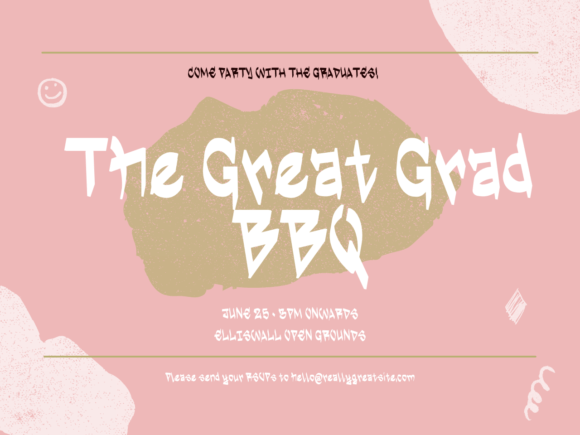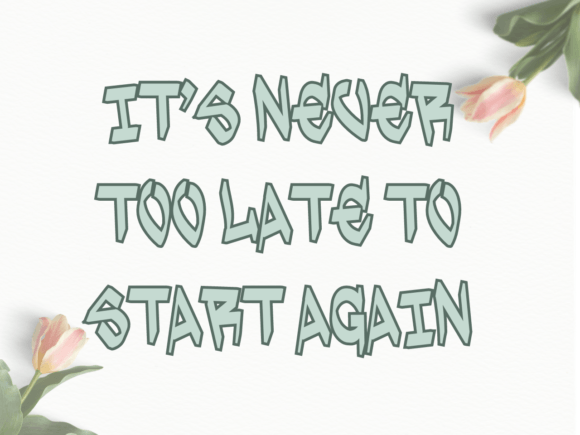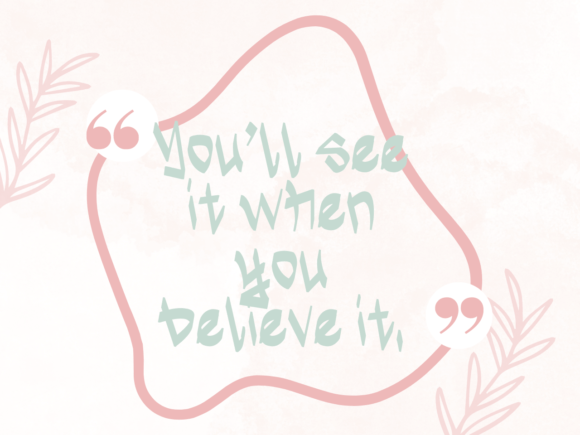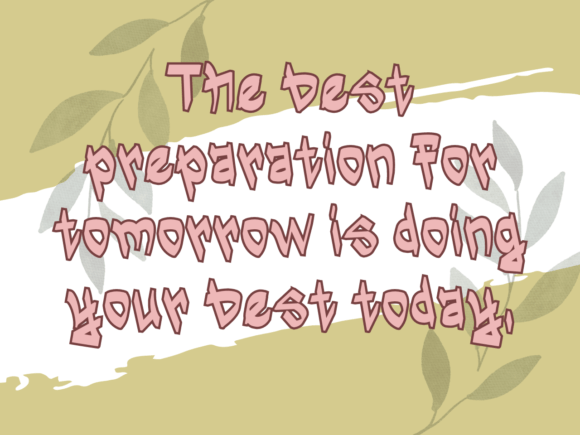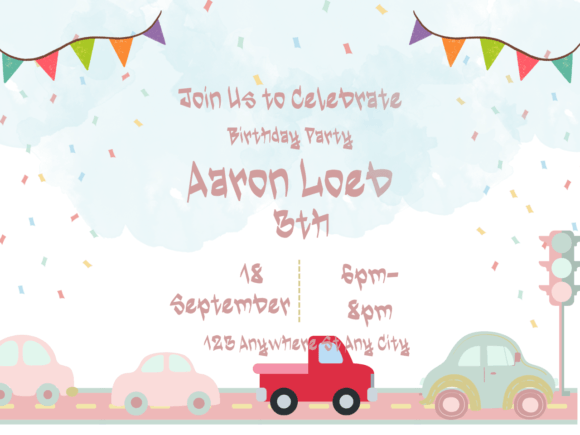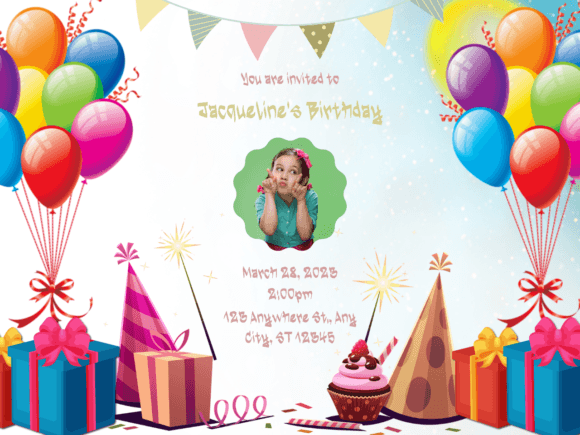
Introduction to Krisin Font
Have you ever found yourself staring at a blank canvas, waiting for inspiration to strike? The moment when creativity flows, and your imagination runs wild? For designers, those moments are what drive us to create something truly special. And sometimes, all it takes is the right tool to bring our vision to life.
Enter the Krisin Font – a sweet and friendly handwritten font that’s about to become your new best friend. With its natural and unique style, the possibilities are endless, and the only limit is your imagination! Whether you’re working on a creative project, or just need a design resource that adds a personal touch, Krisin Font is the perfect addition to your toolkit.
Key Features of Krisin Font
- Designed with a unique, modern aesthetic that sets it apart from other fonts.
Honest Review: Krisin Font
As a designer, I’m always on the lookout for high-quality design resources to elevate my creative projects. Recently, I came across the Krisin Font, and I’m excited to share my thoughts on it.
What works well: ✨ The Krisin Font is incredibly versatile and can be used for a wide range of design projects, from logos to typography. The font is also available for free download, making it an excellent addition to any design toolkit.
- High quality: The font is well-designed and looks great on a variety of backgrounds, including transparent backgrounds.
- Customizable: The Krisin Font can be easily customized to fit the needs of your specific design project.
Limitations: ⚠️ While the Krisin Font is a solid choice for many design projects, it may not be the best option for projects that require a more formal or traditional font style.
Overall impression: I’m thoroughly impressed with the Krisin Font and would definitely recommend it to fellow designers. Its versatility, high quality, and free download make it an excellent addition to any design toolkit.
Krisin Font is perfect for a variety of creative projects, including social media graphics, business cards, and posters. Its high-quality design and transparent background make it a versatile design resource.
To get the most out of Krisin Font, experiment with different font sizes and styles to create a unique look. You can also use the font in combination with other design elements to create a cohesive and visually appealing design.
Alternatives to Krisin Font
The Great Vibes Font is a beautiful, elegant script font that’s perfect for creative projects requiring a touch of sophistication. It’s available for free download and comes in a high-quality format suitable for professional designs. When to use: Wedding invitations, luxury branding, and elegant typography. Comparison to Krisin Font: Great Vibes Font has a more refined and elegant feel, whereas Krisin Font has a more playful and casual vibe.
The Alex Brush Font is a high-end script font that exudes creativity and sophistication. It features a transparent background, making it ideal for designs requiring a clean and minimalist look. When to use: High-end branding, creative packaging, and luxury marketing materials. Comparison to Krisin Font: Alex Brush Font has a more luxurious feel, whereas Krisin Font has a more casual and approachable vibe.